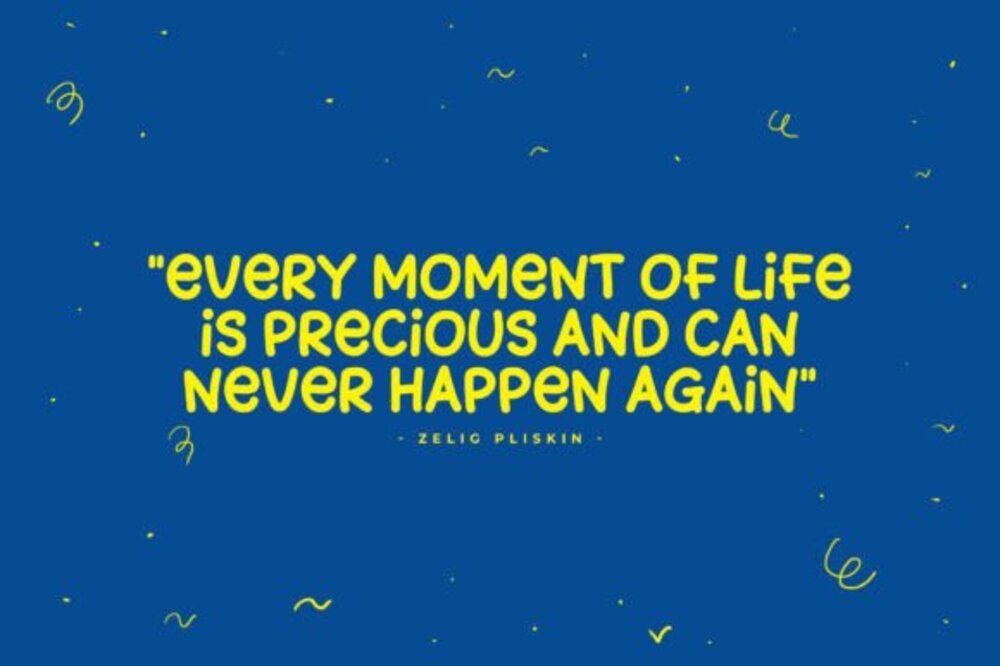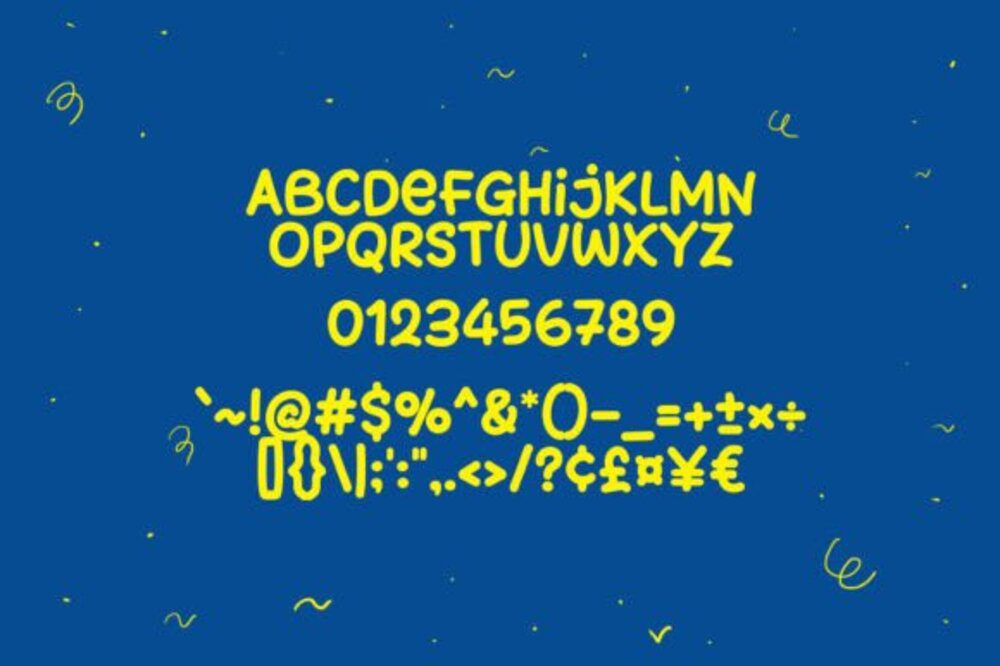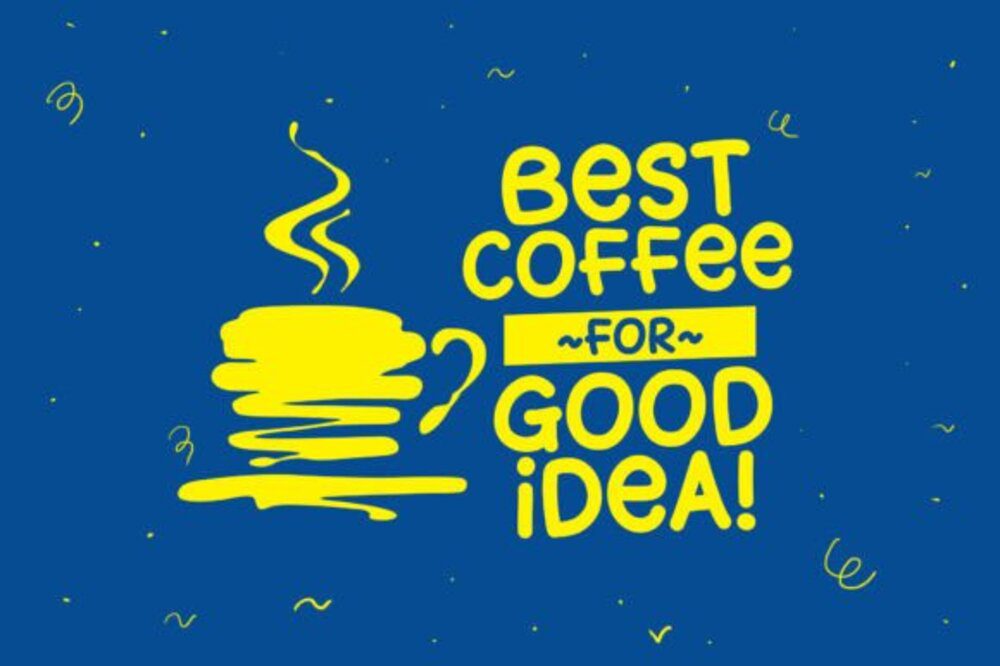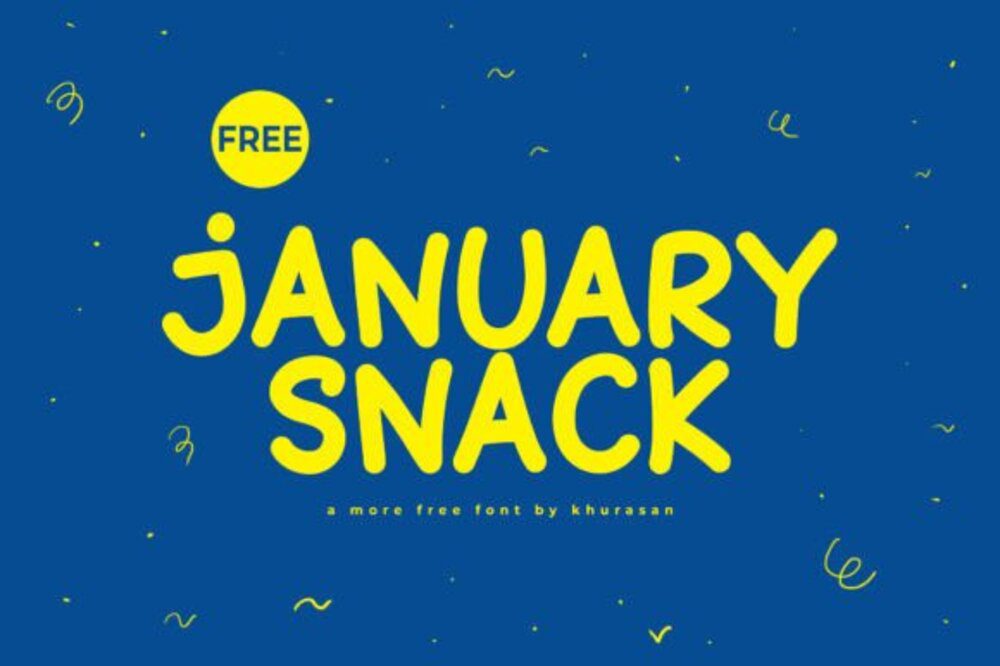
January Snack Font
January Snack Font is a cheerful and whimsical typeface that brings a playful touch to your designs. With its quirky strokes and friendly vibe, it’s perfect for food packaging, children’s projects, branding, and social media graphics. This font captures the cozy essence of winter treats, adding warmth and charm to any creation. January Snack is a delightful choice for fun, creative expressions.